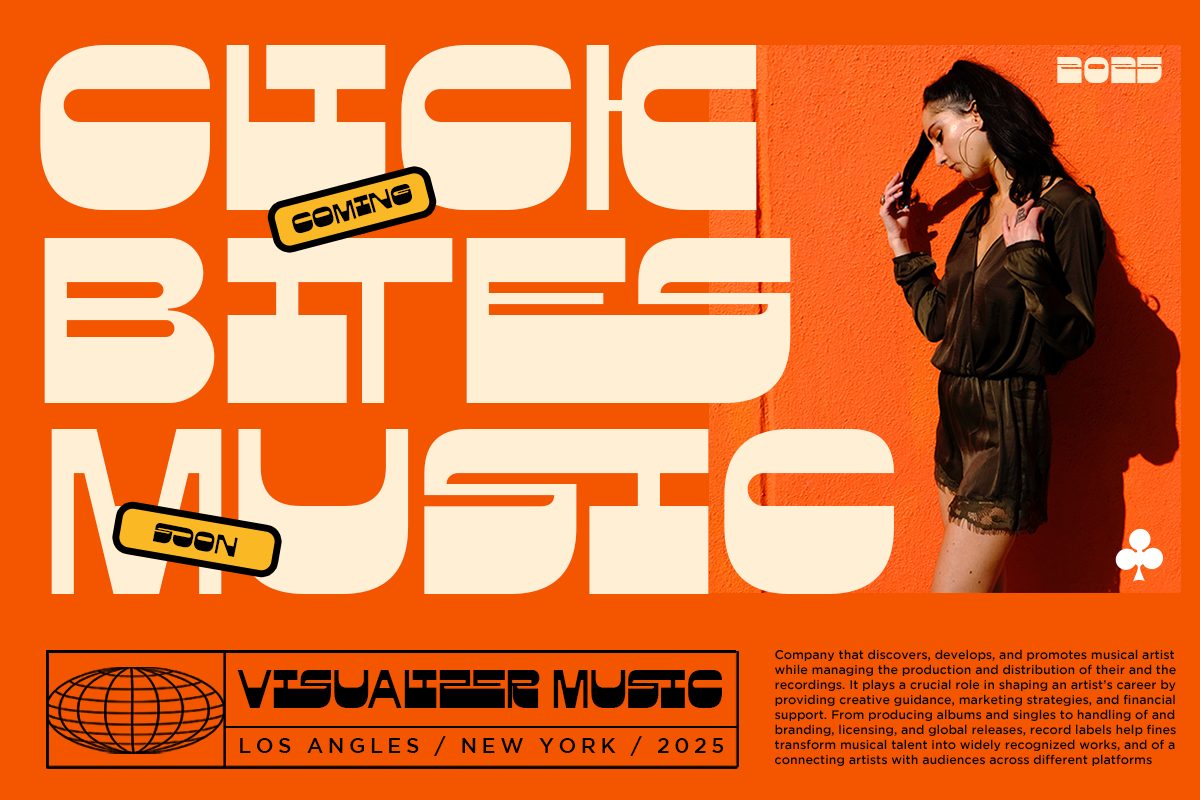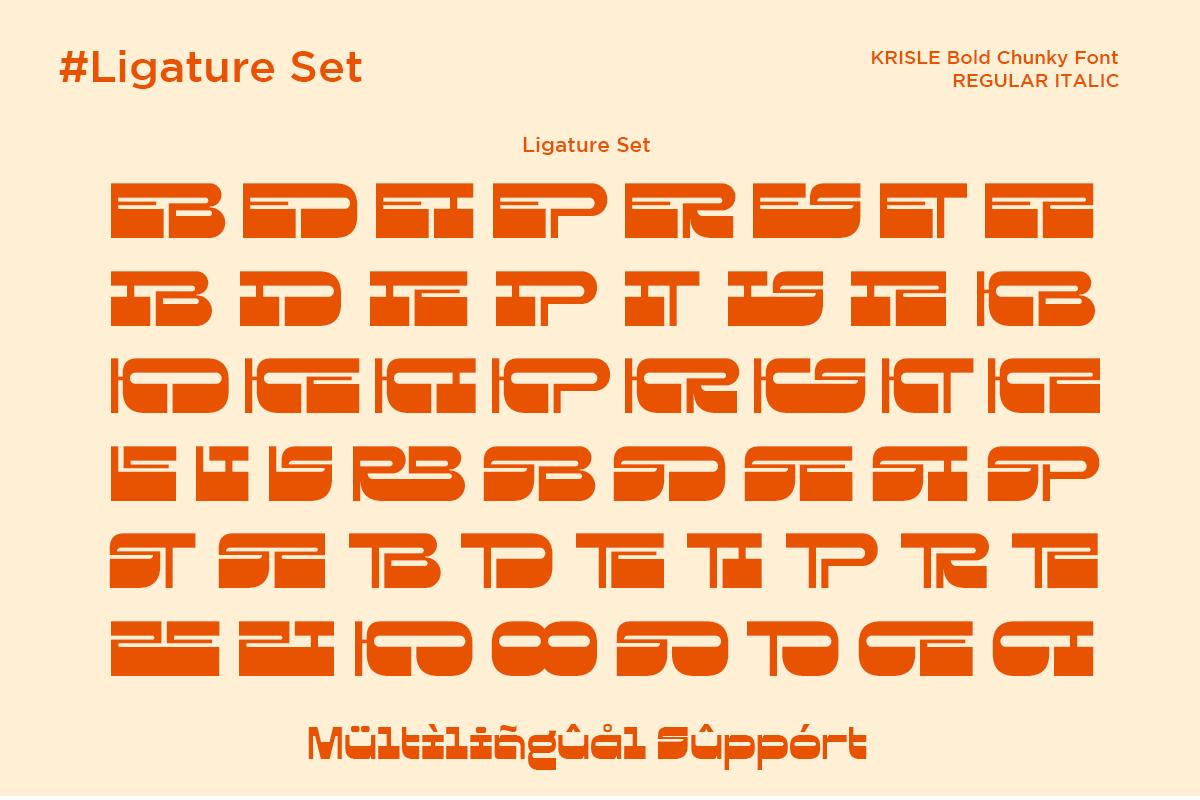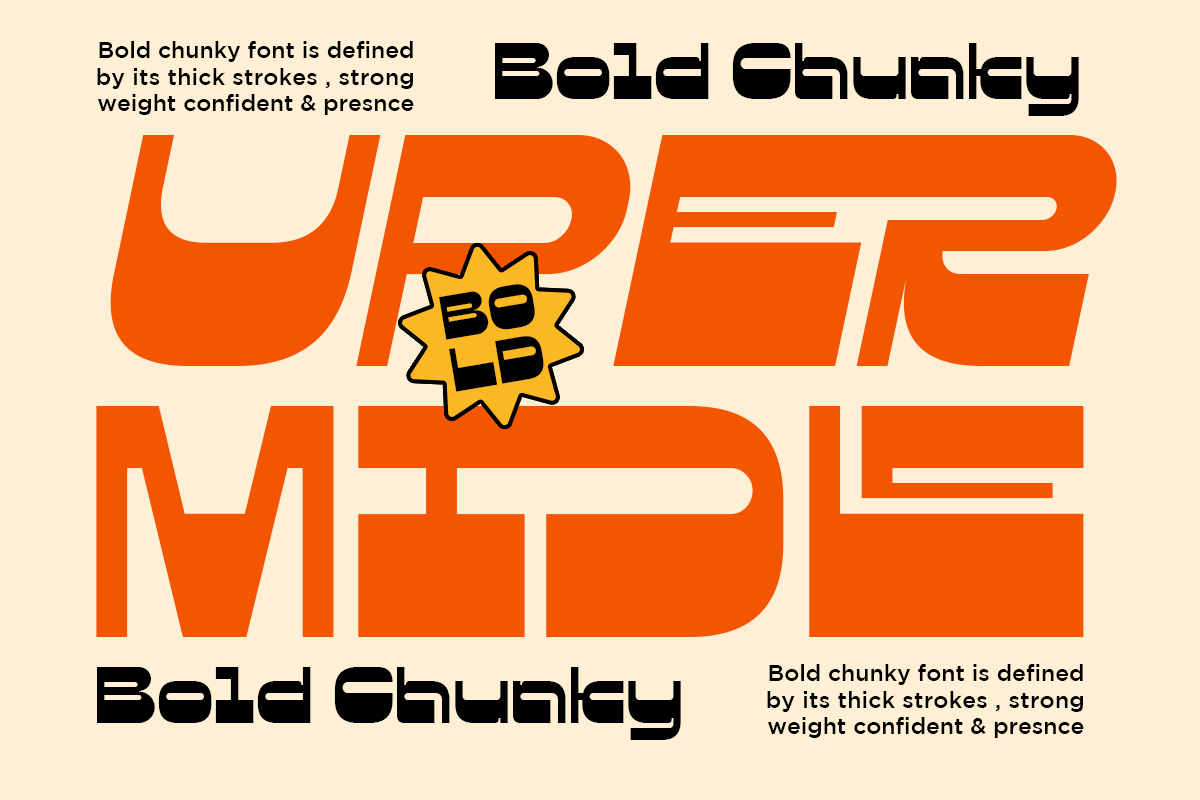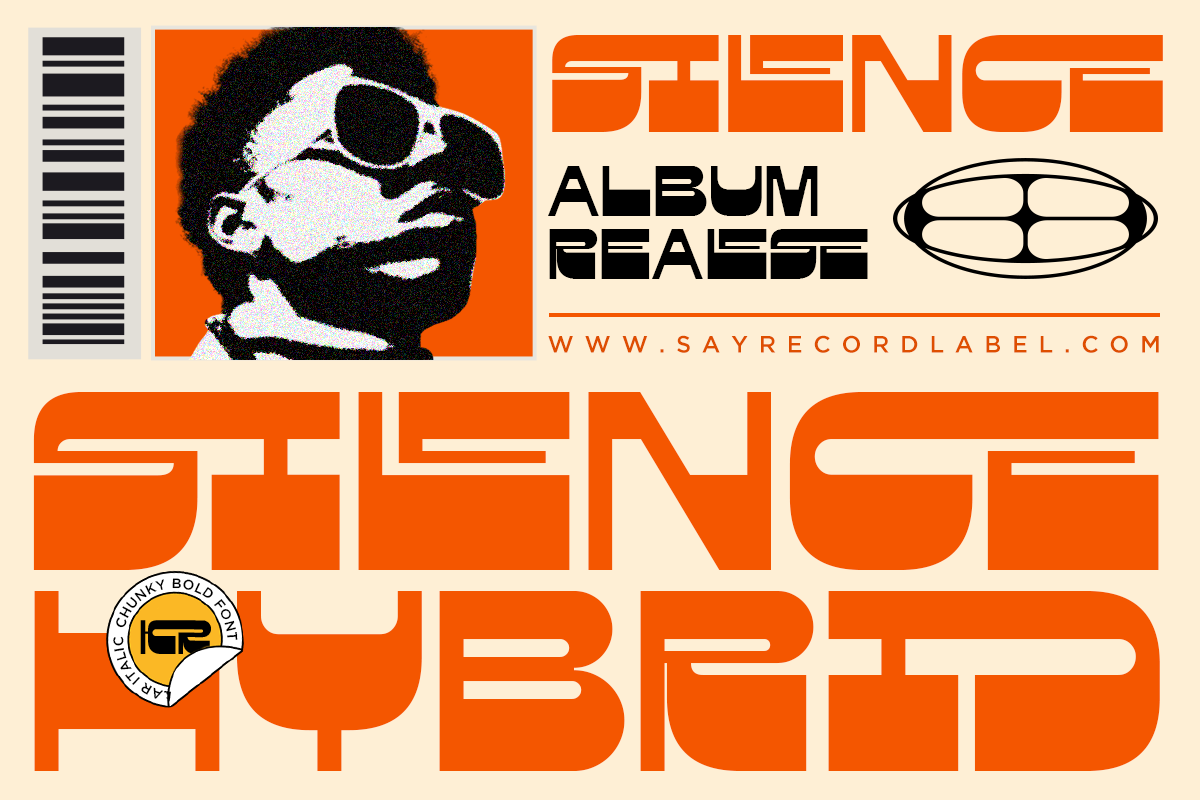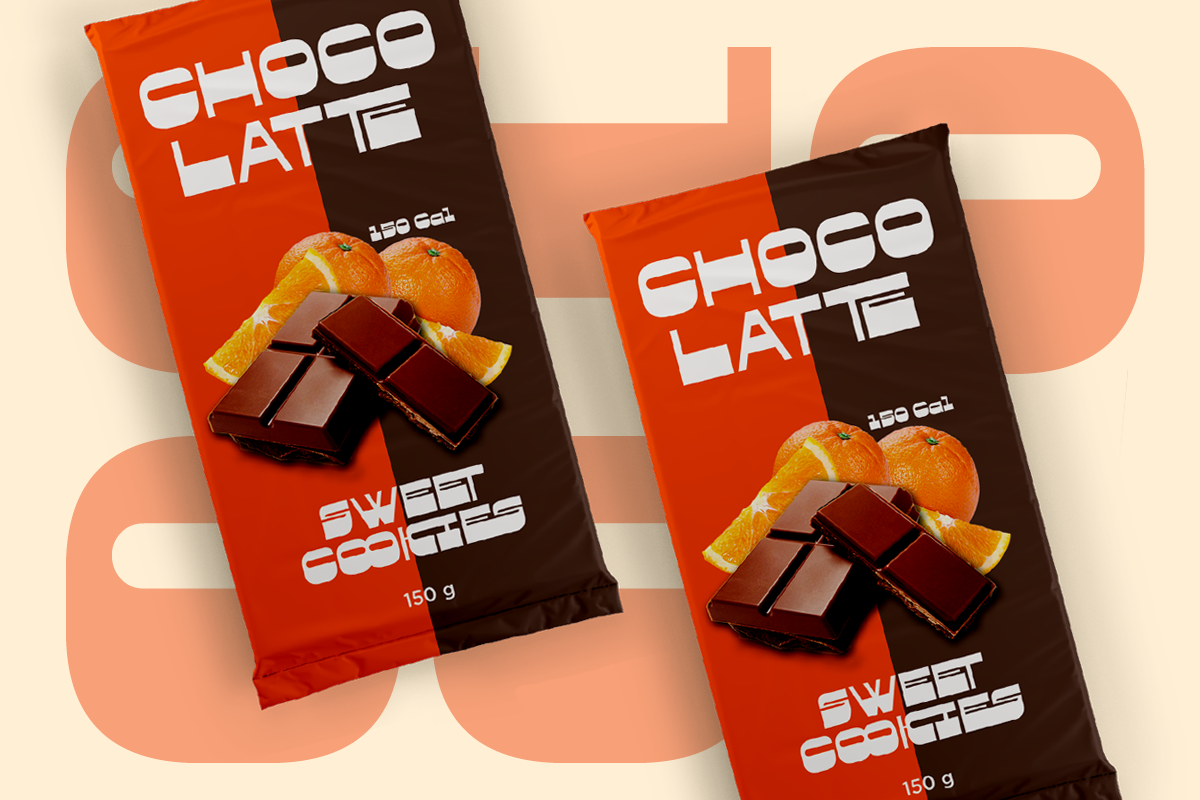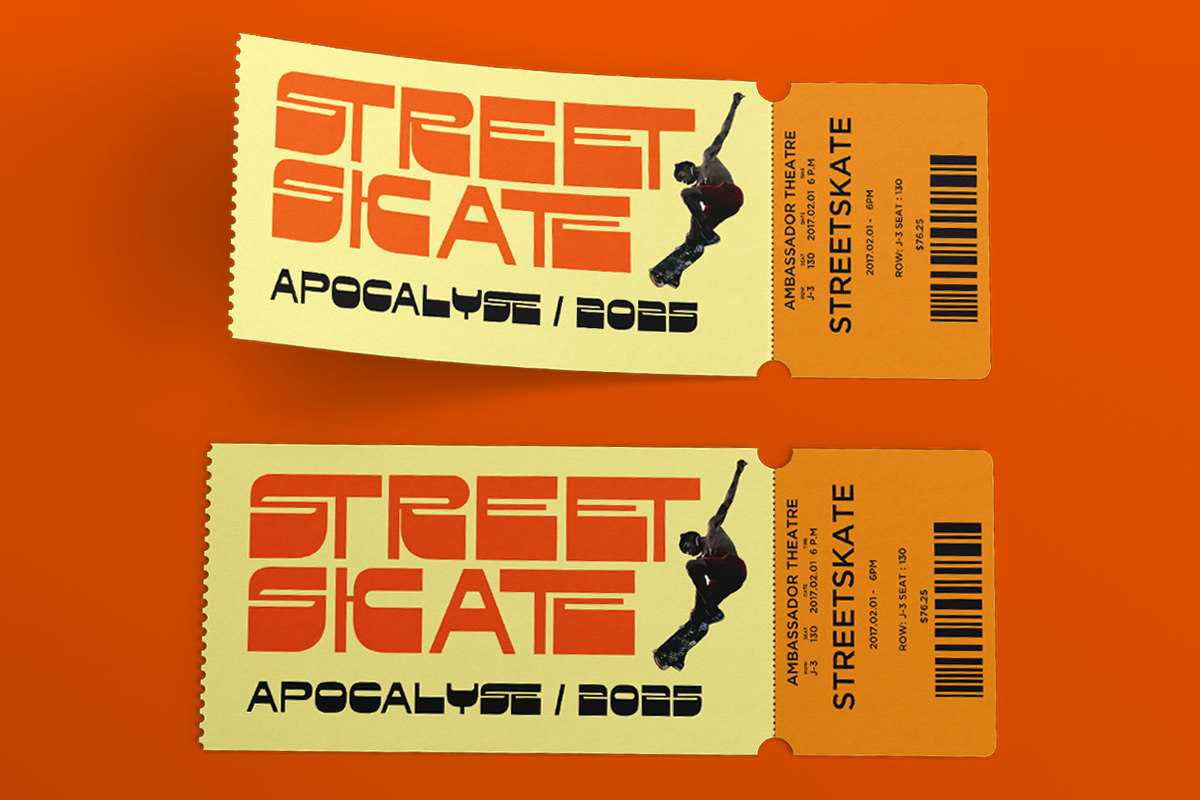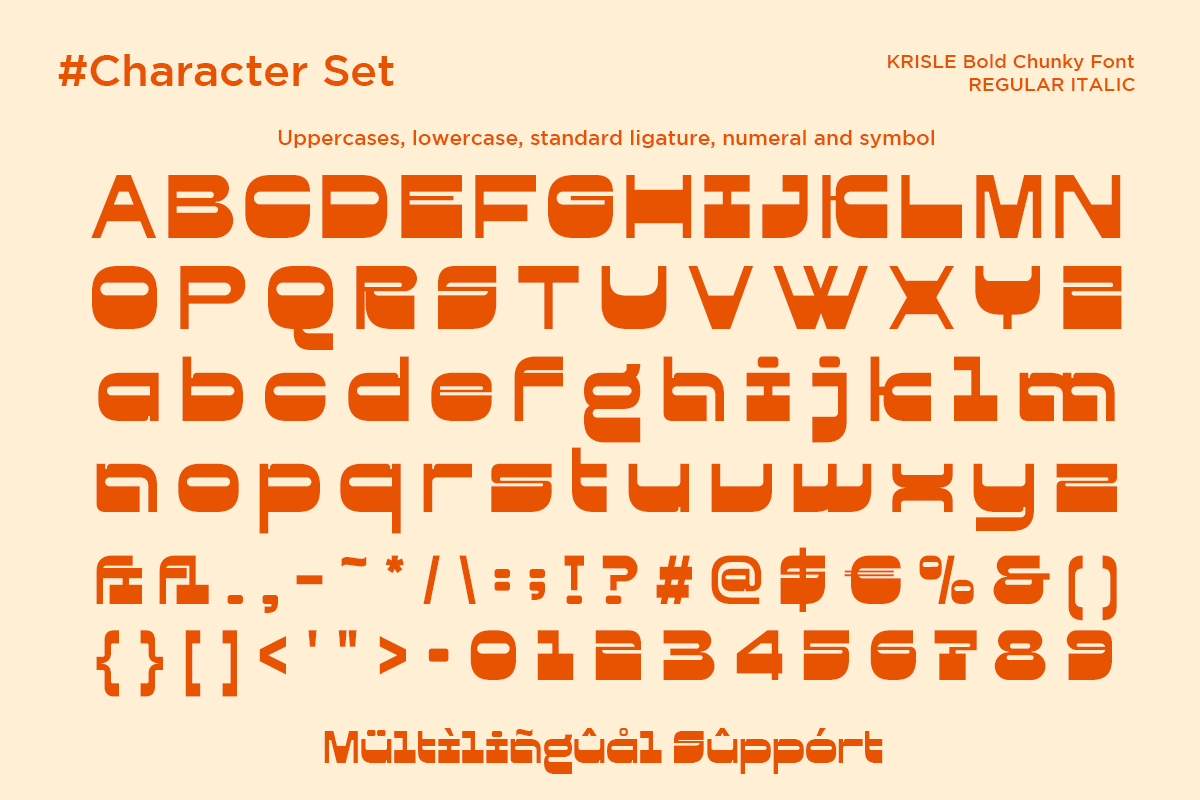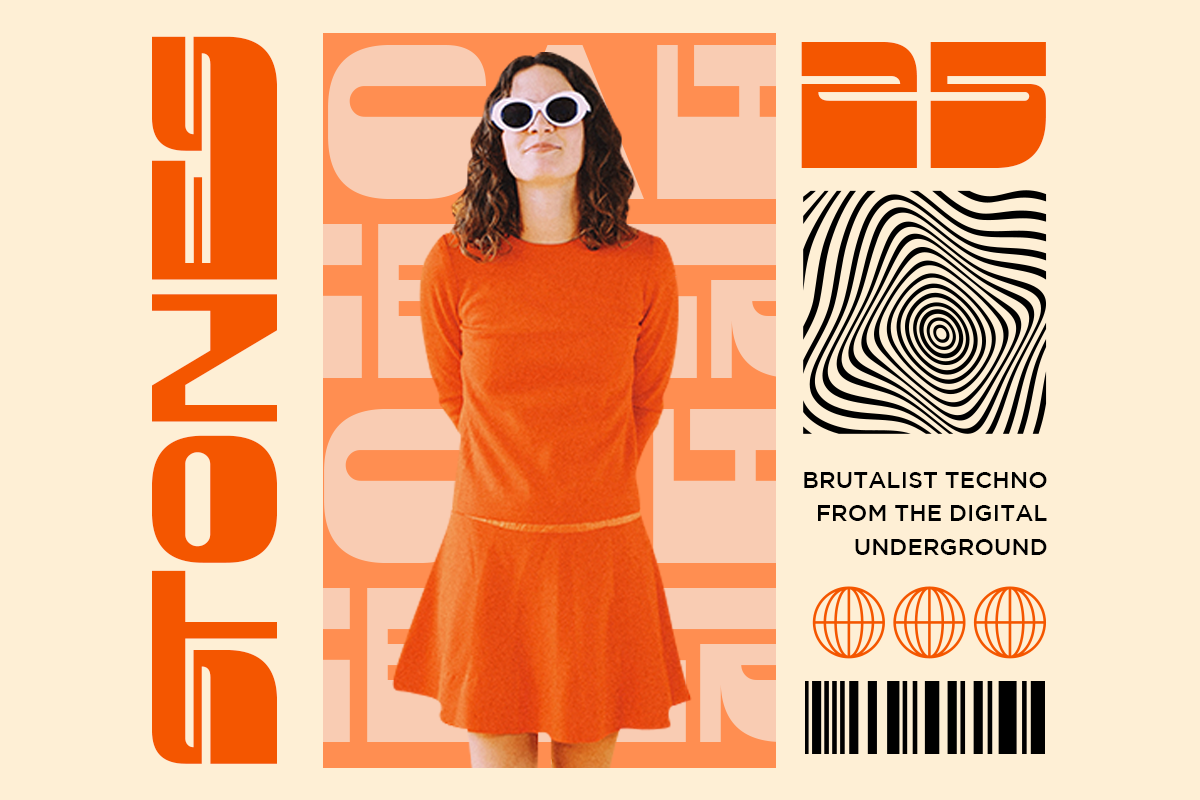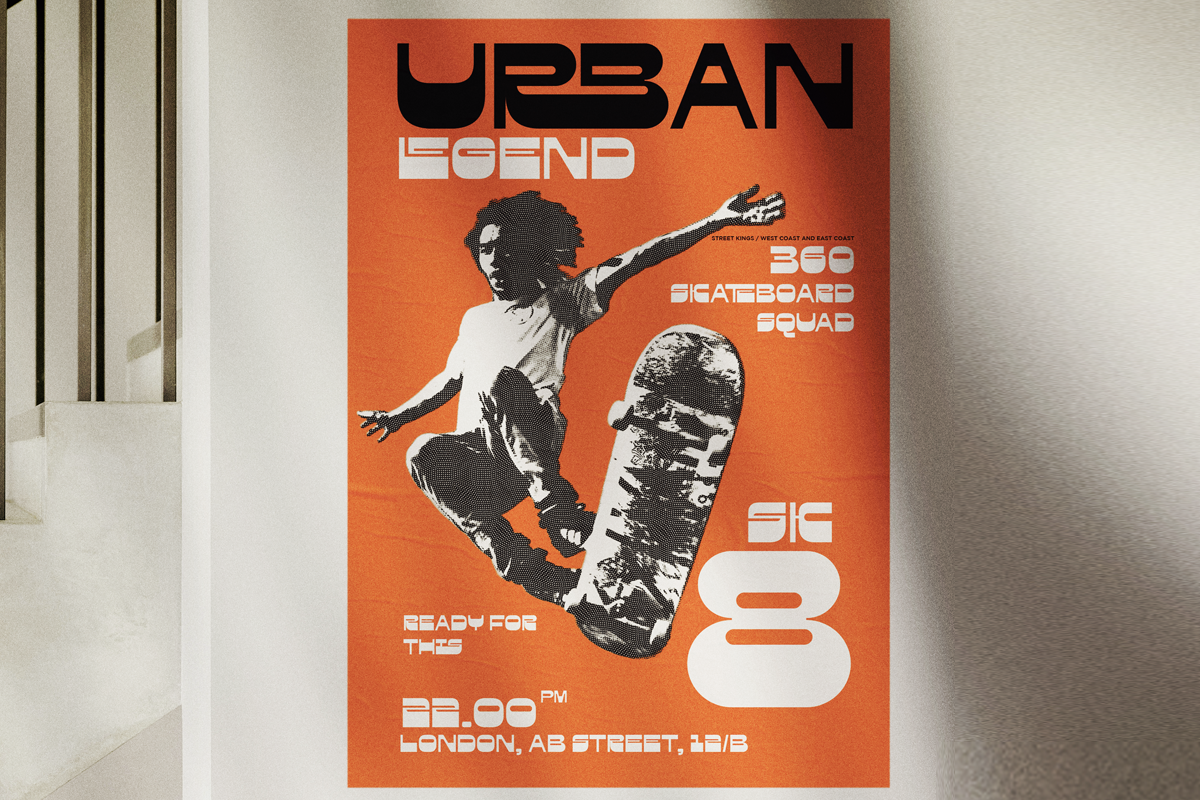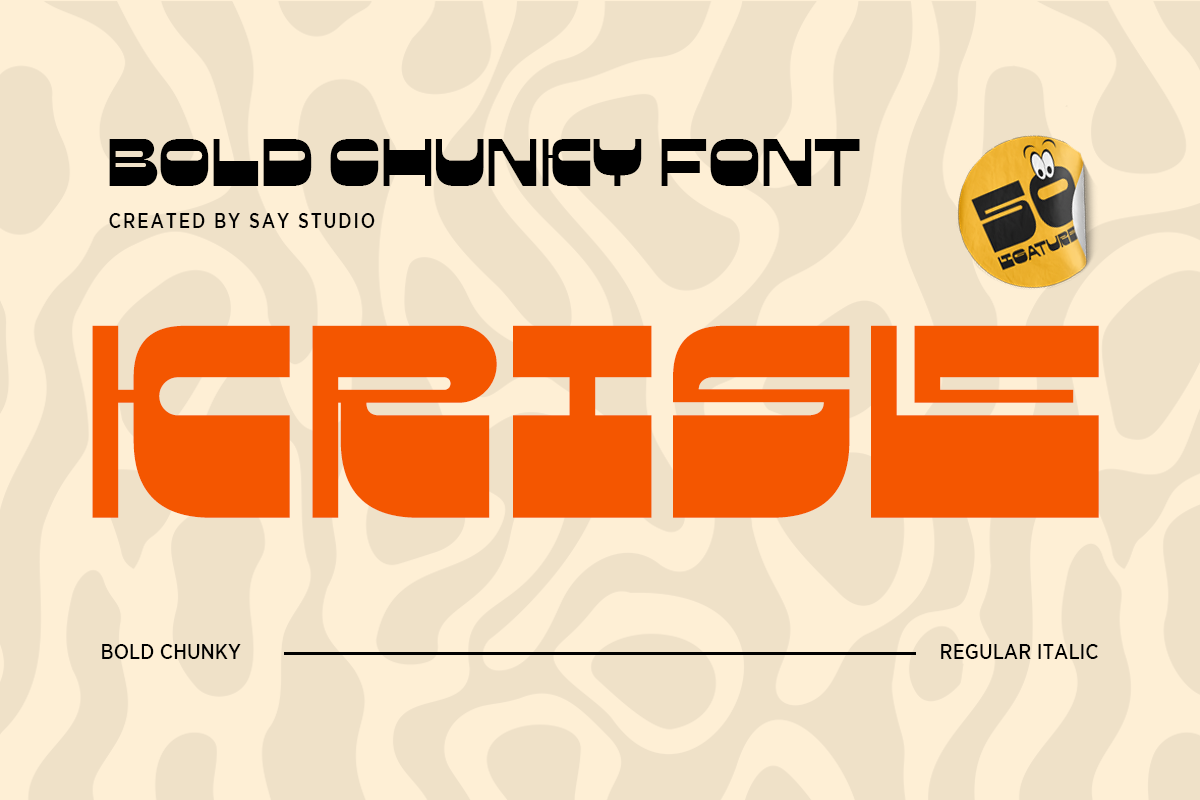
Krisle - Bold Chunky Font
Krisle is a bold chunky display sans serif font designed to make a strong visual statement. With its heavy weight, rounded geometric shapes, and playful personality, this font is perfect for posters, headlines, logos, branding, packaging, streetwear graphics, and modern creative projects. Its solid structure and fun character help create eye-catching designs with high impact and excellent readability.
- Uppercase, Lowercase
- Symbol, Number